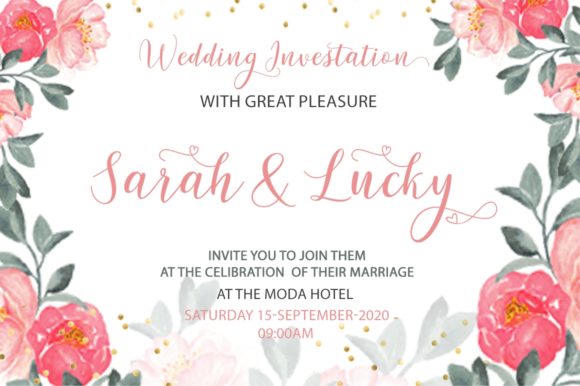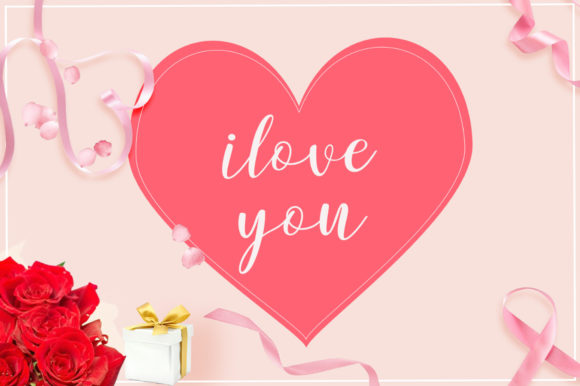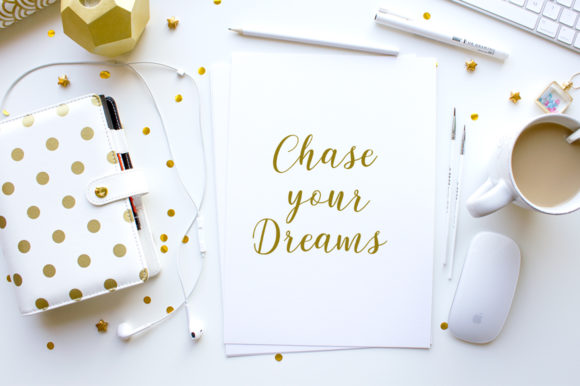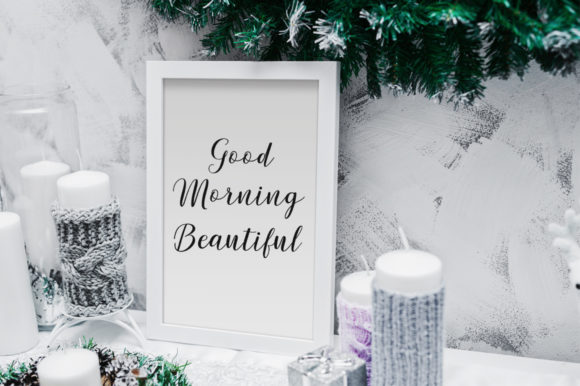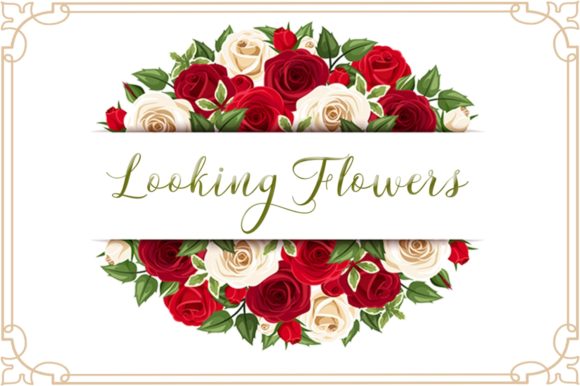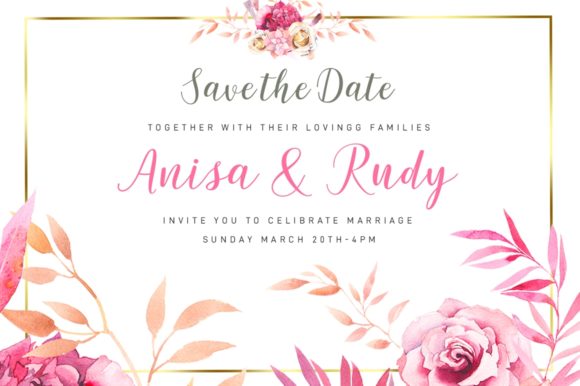
Marysha Script Font
About Marysha Script Font
The Marysha is a trendy and feminine script. Its modern style is perfect for wedding invitations, thank you cards, quotes, greeting cards, logos, business cards and much more!